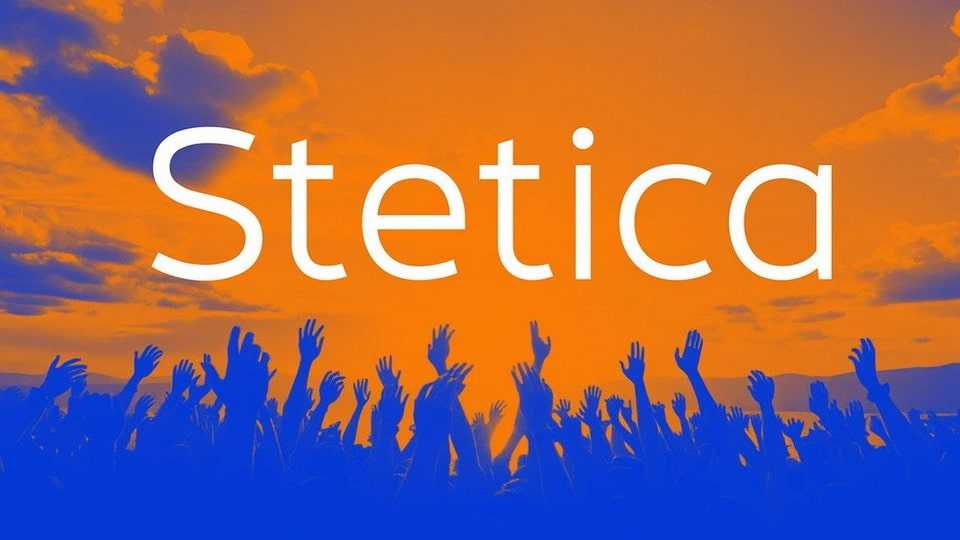
Download Stetica font, a versatile geometric sans-serif typeface that combines precision and balance with a sleek, modern aesthetic.
Designer: Vasiliy Shishkin